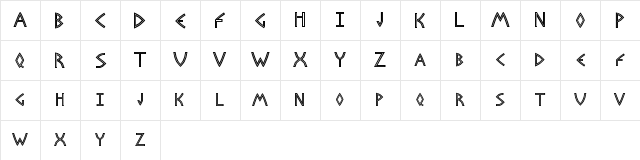
Basileus Regular Free Font
Basileus Regular
Design Context for Basileus
Basileus is a composed and adaptable typeface that performs quietly and consistently across a wide range of design contexts.